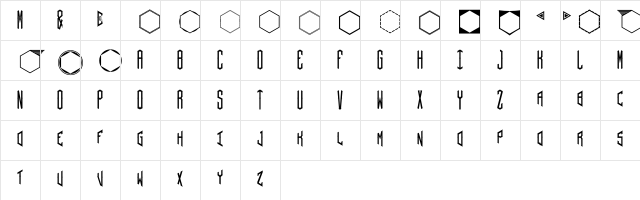
Hex ornate
Style: ornate
Design Context for Hex
Hex is a composed and adaptable typeface that performs quietly and consistently across a wide range of design contexts.